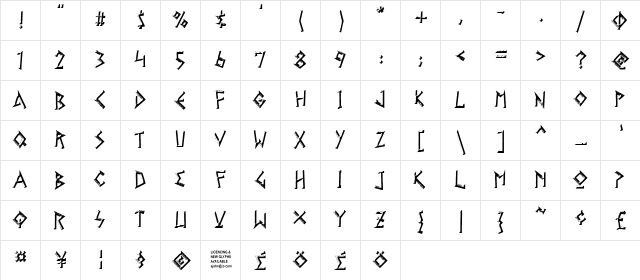
Gelio Kleftiko Regular
| Designer | S. John Ross |
Design Context for Gelio Kleftiko Typeface
Gelio Kleftiko is a composed and adaptable typeface that performs quietly and consistently across a wide range of design contexts.